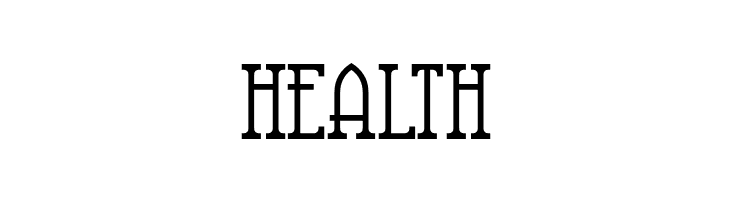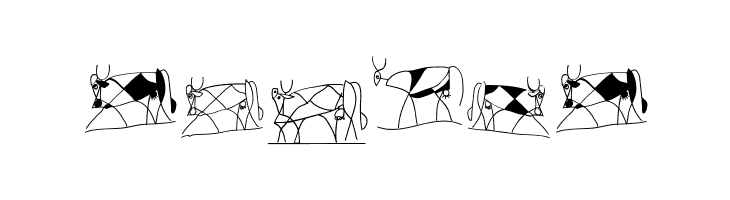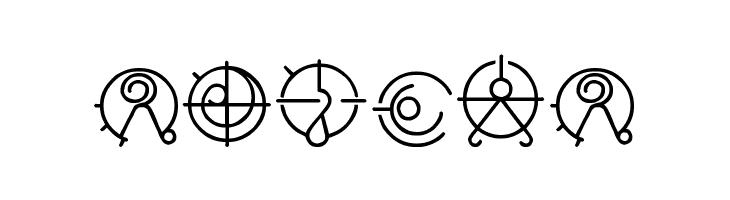
A bold, distressed font with a cracked, vintage texture.
A bold, outlined font with a modern, eye-catching design.
A bold, distressed font with a rugged, vintage appearance.
A decorative font featuring cartoon female faces as characters.
A decorative cartoon face font with playful, expressive characters.
A delicate, flowing handwritten font with elegant and fluid strokes.
A bold, flowing script font with a modern calligraphic style.
A bold, geometric stencil font with strong industrial appeal.
A modern, geometric font with bold, clean lines and a structured appearance.
A bold, angular font with a futuristic and sporty aesthetic.
A bold, angular font with a futuristic and dynamic design.
A playful, handwritten script font with smooth, flowing characters.
A bold, angular font with a modern twist on traditional Blackletter style.
An elegant script font with flowing, ornate letterforms and intricate swashes.
Expressive, illustrative icon-based font with surreal and abstract motifs.
Bold pictogram font with universal signage icons.
A set of bold, clear pictographic symbols for outdoor activities.
A rugged, distressed font with a wild, untamed aesthetic.
A playful and dynamic handwritten font with fluid strokes and a casual style.
A bold, decorative font with playful, three-dimensional characters and unique flourishes.
A bold, playful font with a three-dimensional outline and whimsical serifs.
A bold, geometric font with a modern, industrial feel.
Highly decorative font with pictographic, symbolic glyphs.
A graceful and elegant script font with connected characters and a cursive style.
A modern, handwritten font with elongated, elegant letterforms.
A decorative font with a cross-stitch pattern, evoking a handcrafted feel.
A decorative font with a cross-stitch embroidery style.
A vintage, hand-drawn display font inspired by retro advertisements.
A bold, dripping font with a gooey, liquid appearance.
A bold, hand-drawn font with a raw, artistic style and irregular edges.
A traditional Blackletter font with bold, angular strokes and high contrast.
A bold, Gothic-inspired font with sharp, angular edges and intricate detailing.